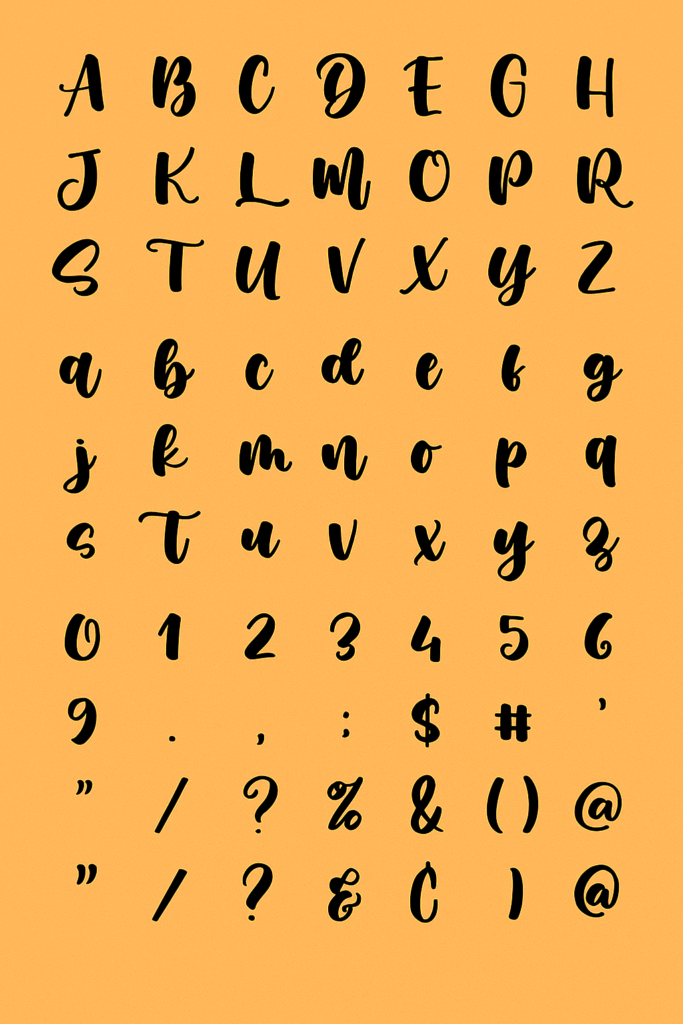
Muthiara Font: Introduction
Muthiara Font presents itself as a current script variety that reproduces the sophisticated and graceful penmanship of traditional writing systems.
Muthiara maintains the organic handwritten quality while delivering readable text through its design intended for branding and invitations, and projects requiring typed designs. Organizations use this font to design wedding invitations together with business logos and social media graphics because it delivers sophisticated elegance in all its designs. Designers and calligraphy enthusiasts find Muthiara attractive due to its flowing strokes, which create a romantic and high-end design appearance.
History of Muthiara Font
Abo Daniel Studio established Muthiara Font as a part of their elegant script fonts portfolio which made them well-known in the type foundry industry. Branding professionals together with designers embraced Muthiara as a script font product that showcased a sleek professional appearance.
Muthiara emerged as a font type that combines contemporary style with inked pen lettering from traditional times. The font is popular for creating upscale visual elements such as branding signatures and sophisticated advertisements.
Features of Muthiara Font
Muthiara Font offers several standout features that make it a preferred choice for designers:
- Elegant Script Lettering
Muthiara’s continuous flowing lines imitate handwritten calligraphy thus making it suitable for elegant projects needing individualized elegance.
- Smooth and Stylish Curves
The smooth curves along with balanced strokes within this font design establish harmony and sophistication as its main characteristics.
- Versatile Uppercase and Lowercase Letters
The lowercase and uppercase letters in Muthiara Font allow diverse design use from logo creation to brand element development.
- Ligatures and Swashes
The script uses ligatures together with stylistic swashes that make text flow like handwriting while decorating typography with decoration.
- Multilingual Support
Muthiara operates across multiple linguistic systems which enables global designers to use it with their diverse typography needs..
- Easy Readability
Unlike some overly decorative script fonts, Muthiara maintains a good balance between style and legibility, ensuring that text remains readable even in intricate designs.
Applications of Muthiara Font
Muthiara Font is a versatile script typeface suitable for a wide range of design applications:
- Branding and Logo Design
Muthiara operates as a standard branding tool for luxury industries including fashion and beauty business sectors. Businesses in luxury fashion and beauty utilize Muthiara to establish their brand image through its elegant script.
- Wedding Invitations and Stationery
Carved filigree presents Muthiara with its romantic and graceful characteristics that make it an attractive option for wedding invitations and greeting cards as well as event stationery.
- Social Media Graphics
Muthiara serves as aesthetic design material for influencers and bloggers and brands who need it to enhance their Instagram highlights and YouTube thumbnails as well as social media posts.
- Signatures and Personal Branding
The smooth poetic lines in Muthiara create a perfect signature-style branding tool that brings individuality to email signatures, business cards and website pages.
- Luxury Packaging and Product Design
Luxury brands select Muthiara as an elite material for perfume bottles and fashion tags alongside boutique design implementations.
- Advertising and Promotional Materials
From posters to brochures, Muthiara Font adds a touch of class to advertising campaigns, promotional flyers, and corporate presentations.
Alternatives to Muthiara Font
While Muthiara is an excellent choice for elegant script typography, there are several alternative fonts that provide a similar style:
- Features a modern and romantic calligraphy style.
- Ideal for branding and high-end design projects.
- A handwritten script font with a fluid and delicate appearance.
- Great for wedding invitations and personalized branding.
- Offers graceful letterforms and elegant strokes.
- Suitable for social media graphics and packaging.
- A chic and feminine script font with unique swashes.
- Perfect for logos, blog headers, and boutique branding.
- A stylish and modern calligraphy font.
- Ideal for signature-style branding and fashion design.
How to Use Muthiara Font Effectively
To make the most of Muthiara Font, consider these design tips:
- Pair it with a Clean Sans-Serif Font
When paired with Open Sans or Montserrat, Muthiara achieves its best visual effect while maintaining readability through minimalism.
Conclusion
Muthiara Font stands out as an exclusive script typeface which delivers elegance alongside fluidity through its charming style. The typeface fits luxurious brand identities together with wedding invites and promotional materials because it maintains both sophistication and elegant charm.
Although Muthiara stands as a popular font choice it does have alternatives in Buttercup Script and Rachella Script which offer comparable design aesthetics for diverse needs.